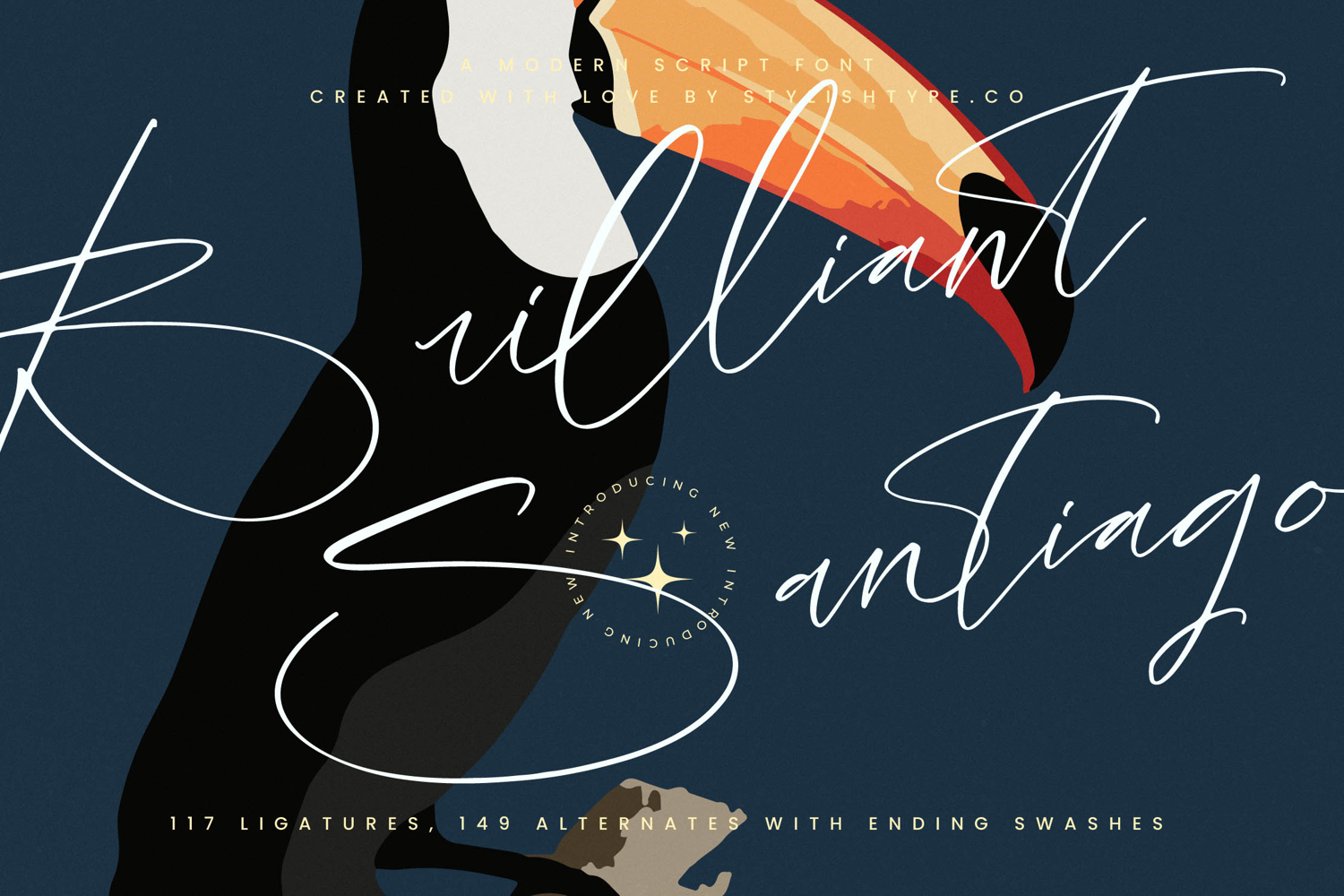
Brilliant Santiago - Modern Script Font
Brilliant Santiago - Modern Script Font, a typeface defined by its luxurious flow and sophisticated rhythm. This stunning script boasts extreme high-contrast weights, transitioning seamlessly from delicate hairlines to robust strokes, creating an authentic, impactful visual presence. The organic, handwritten quality ensures that every design feels intimate and deliberately crafted, establishing instant premium appeal and unique brand personality.